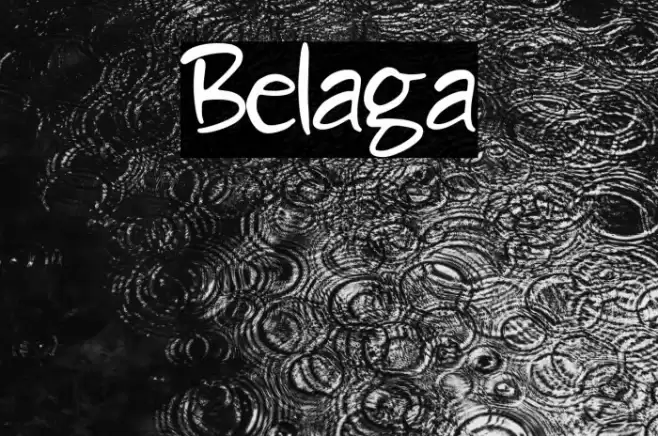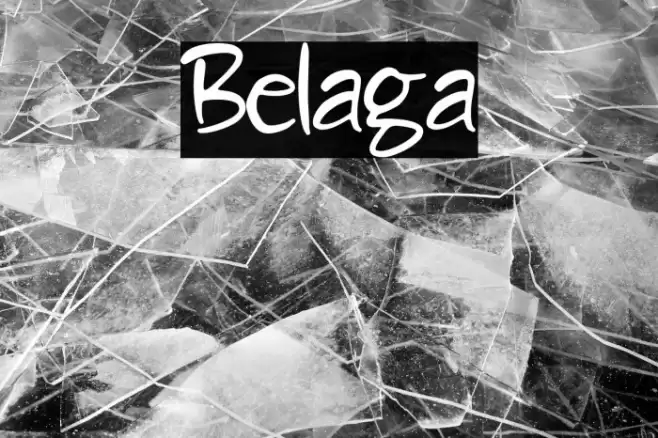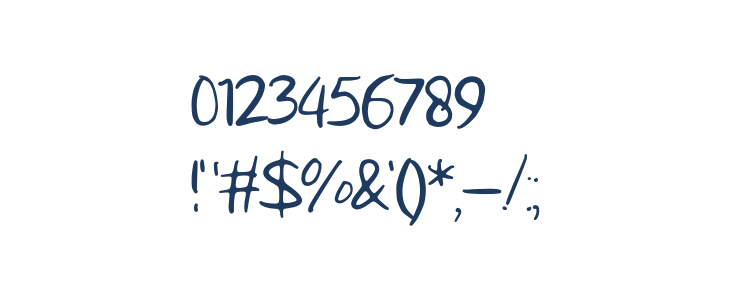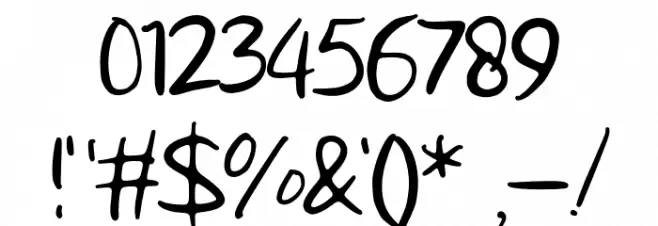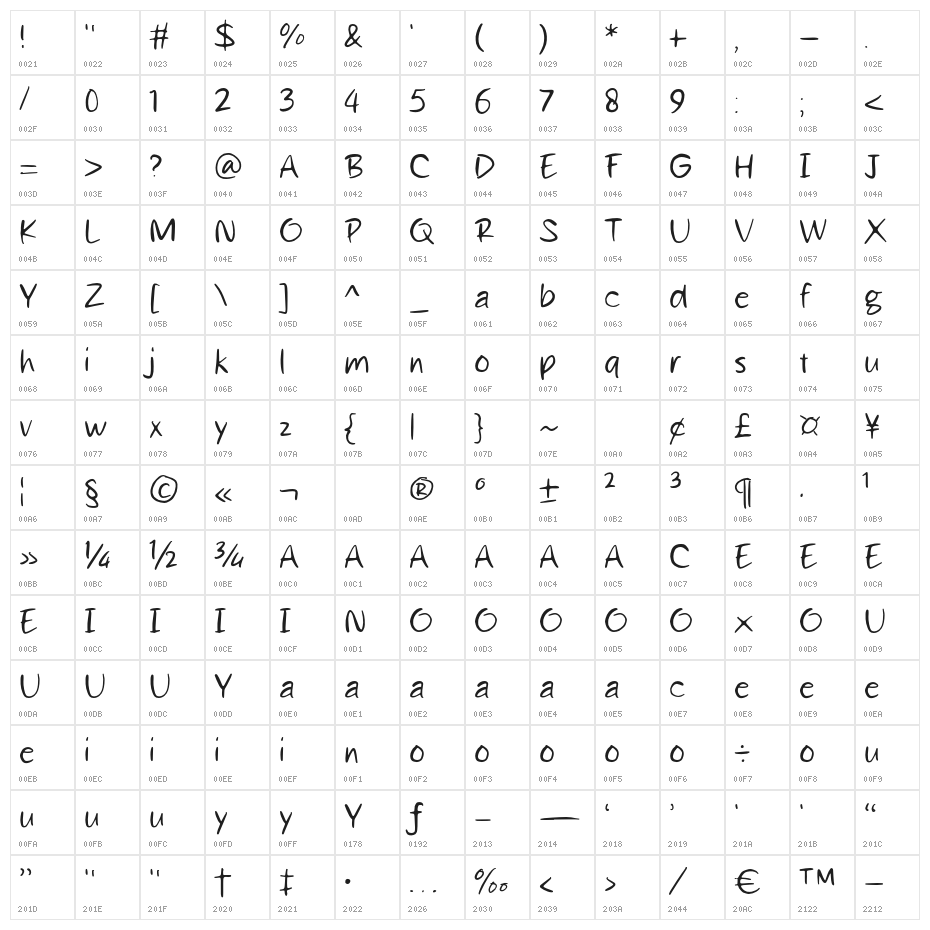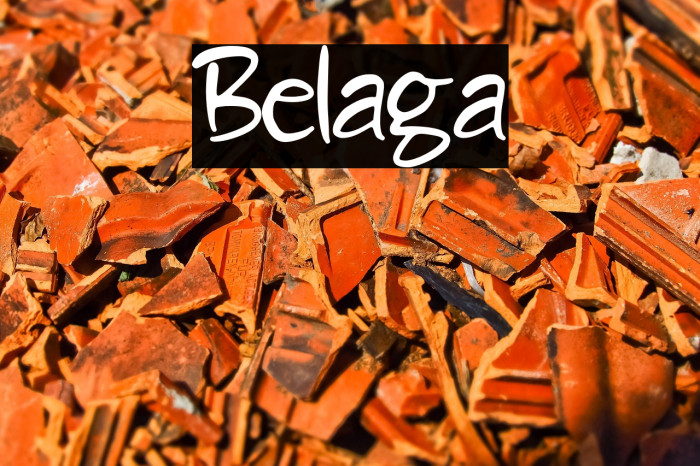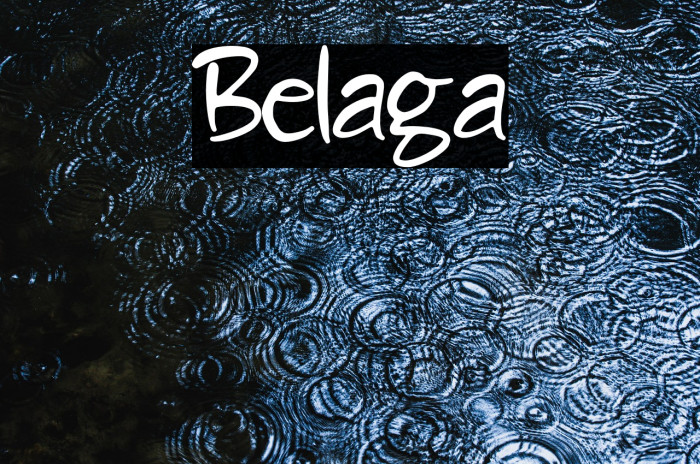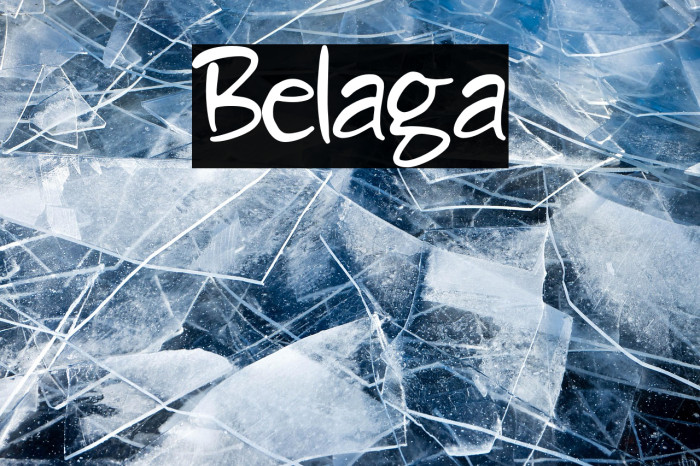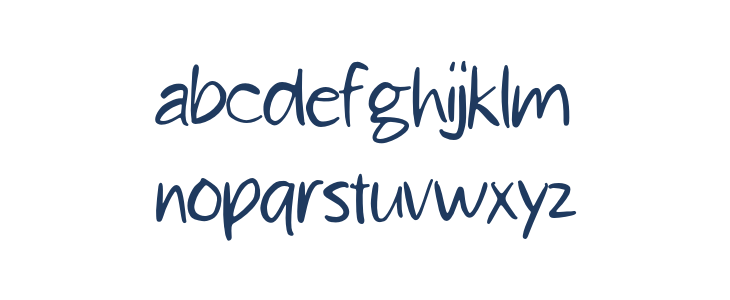
Belaga Font
Belaga Description
This font exudes a playful and casual handwritten style, characterized by its smooth, flowing curves and slightly irregular letterforms that give it a personal touch. The uppercase letters are bold and confident, while the lowercase letters maintain a consistent rhythm, enhancing readability. The numerals are clear and distinct, matching the overall style of the alphabet. Special characters are creatively designed, adding to the font's versatility. This font's informal and friendly appearance makes it suitable for a variety of creative projects.
A playful, casual handwritten font with smooth curves and a personal touch from Uncategorized fonts.
- Font: Belaga
- Proposed Projects: Ideal for greeting cards, invitations, personal branding, and creative social media graphics.
- Overall Style: Casual
- Use Case: Logos, Headlines, Informal communications